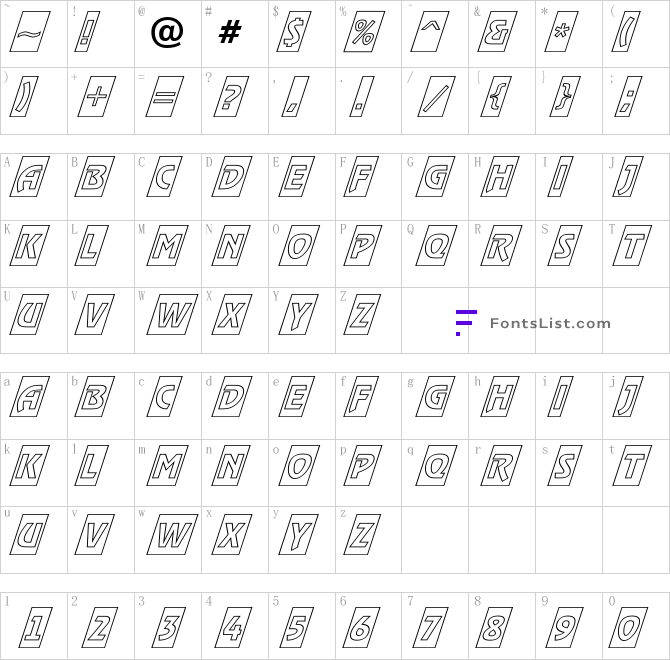
- Font Name:a_RewinderTitulCmOtlObl
- Full Name:a_RewinderTitulCmOtlObl
- PostScript:ARewinderTitulCmOtlObl
a_RewinderTitulCmOtlObl.ttf is a very beautiful artistic font, a_RewinderTitulCmOtlObl.ttf is widely used in the design and printing of various books and pictures,a_RewinderTitulCmOtlObl.ttf has a strong visual impact,a_RewinderTitulCmOtlObl.ttf is a commonly used font in newspapers, magazines and books, and is used in posters, e-commerce Poster design, store design, logo design, font design and other fields.a_RewinderTitulCmOtlObl.